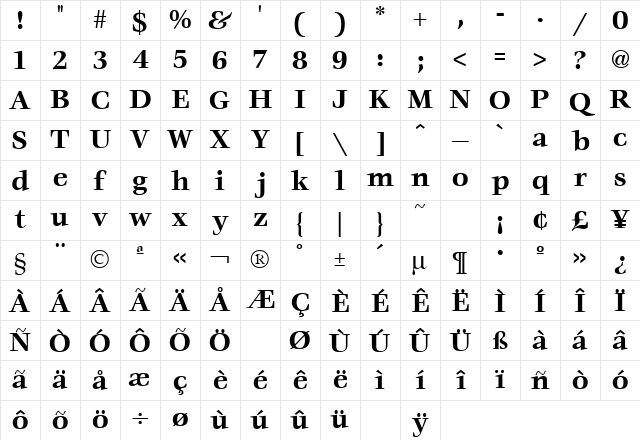
Complete Veljovic Bold glyph index. Displaying only characters natively supported by Veljovic Bold font.
Veljovic is a composed and adaptable typeface that performs quietly and consistently across a wide range of design contexts. Its bold stroke weight gives it real presence on the page.